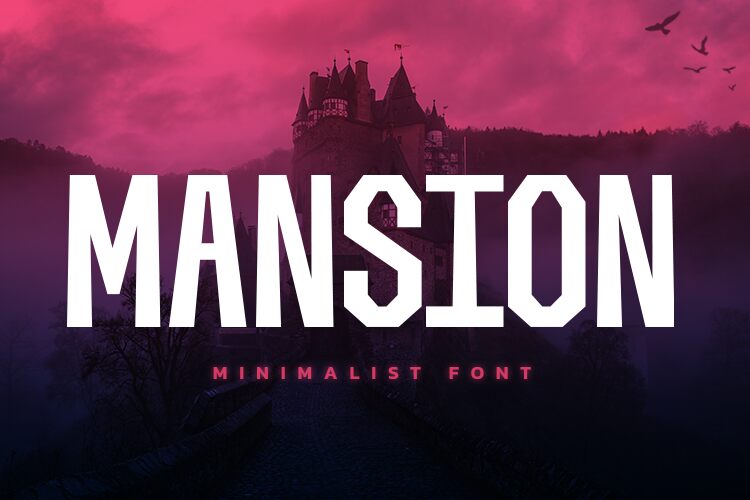
Mansion, an exquisite display font crafted by the talented designer Hoperative, captivates with its condensed width and alluring charm. Perfect for luxury brands seeking an elegant touch, Mansion lends itself seamlessly to opulent invitations, high-end logos, and sophisticated packaging. Its timeless appeal makes it a versatile choice for fashion magazines longing to make a statement or prestigious event banners wanting to exude exclusivity. With Mansion's refined lines and graceful curves, this font elevates any project into a realm of refined sophistication. Embrace the allure of Mansion and let your design shine with unparalleled grandeur.